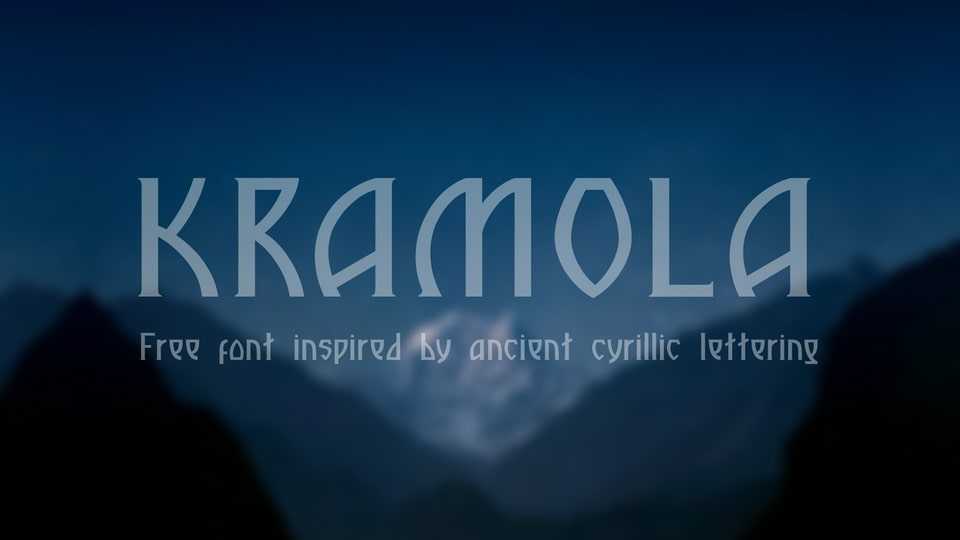
Download Kramola font, a display typeface inspired by ancient Cyrillic lettering. Rooted in the legacy of traditional scripts, Kramola font encapsulates the beauty and heritage of bygone eras while offering a contemporary twist.
Designer: Aleksey Mednov